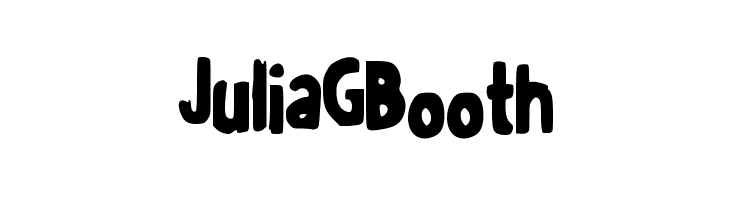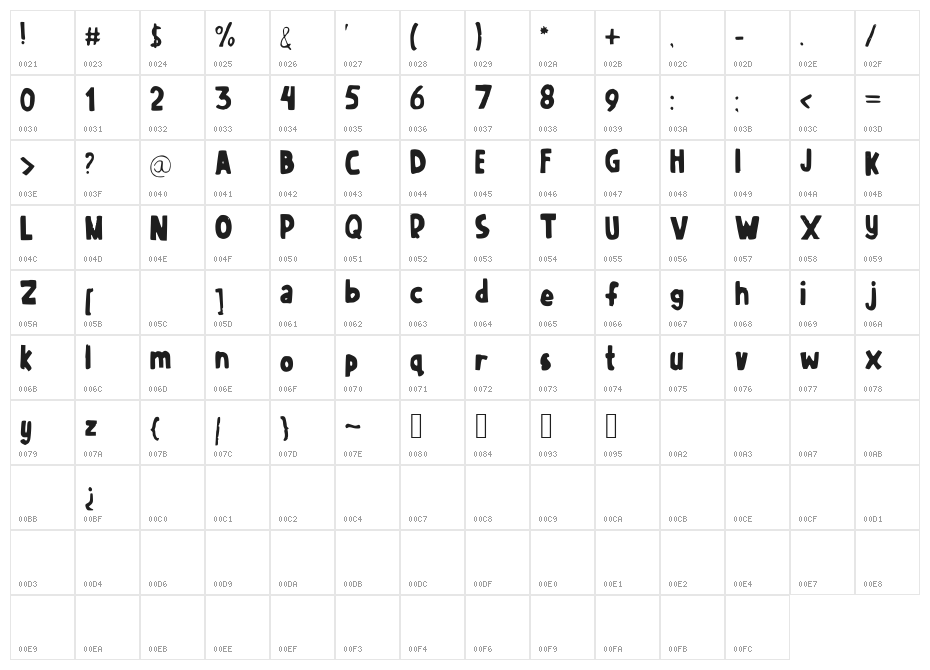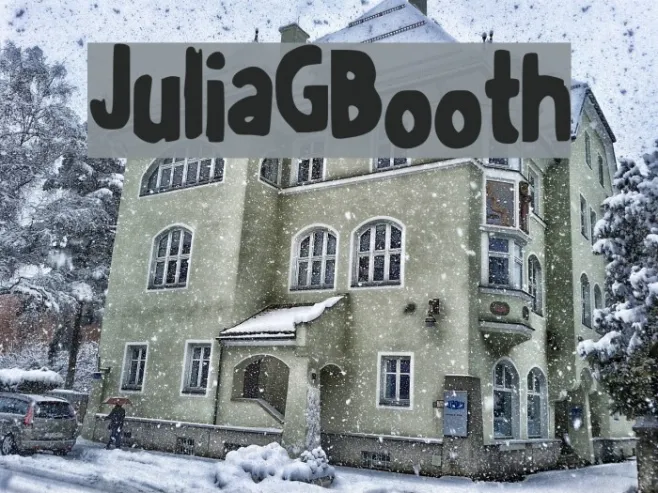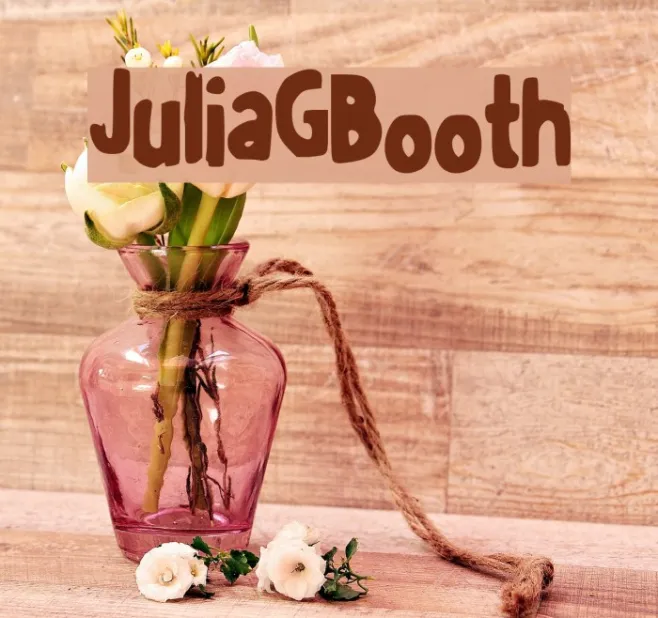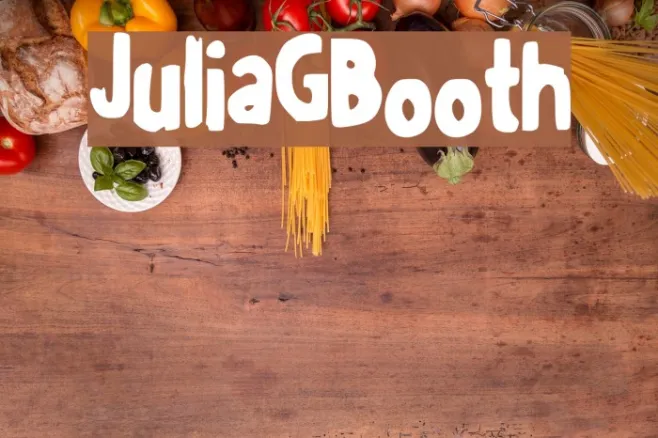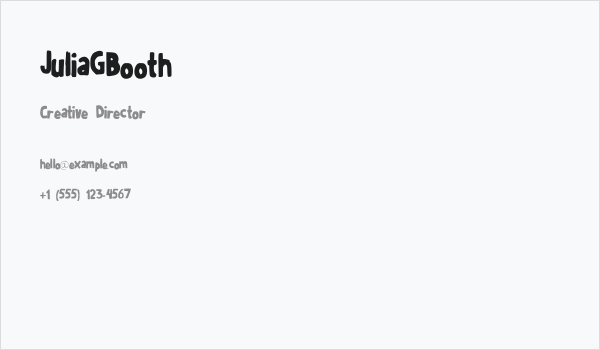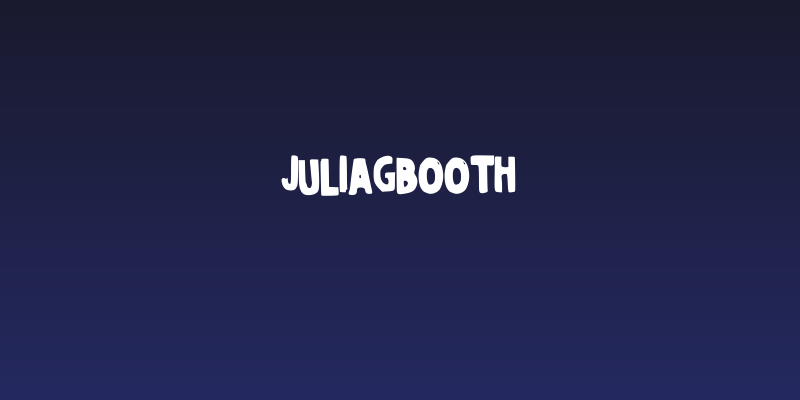
JuliaGBooth Font
JuliaGBooth Description
This font features a playful and bold design with a hand-drawn aesthetic. The characters are thick and rounded, giving them a friendly and approachable look. The uppercase and lowercase letters maintain a consistent style, with slight variations that add to the whimsical charm. Numbers and special characters are equally bold, ensuring readability and visual impact. The overall appearance is casual and informal, making it suitable for creative and fun projects.
JULIAGBOOTH UPPERCASE
JULIAGBOOTH LOWERCASE
JULIAGBOOTH OTHER CHARS
| Overall Style | Playful, Whimsical, Casual |